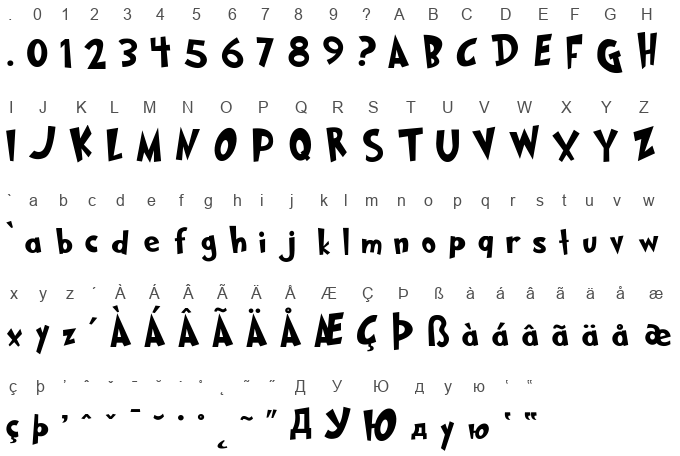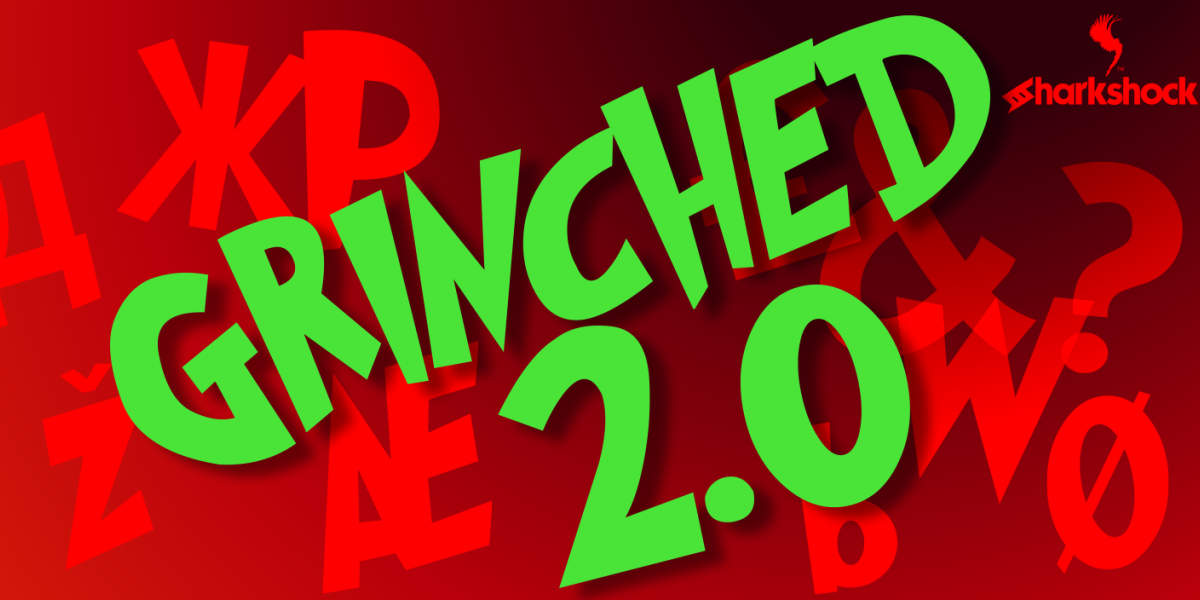
The Grinched 2.0 font is a display sans-serif typeface that is both highly decorative and playful, making it instantly suitable for cartoon and holiday themes. The characters are heavy and bold, with a noticeable slanted or italic lean that adds to its mischievous character. The font features slightly rounded edges and an overall irregular, whimsical shape. It is an updated version that offers broad international support, as indicated by the various non-Latin and accented characters visible in the promotional image.
Grinched 2.0